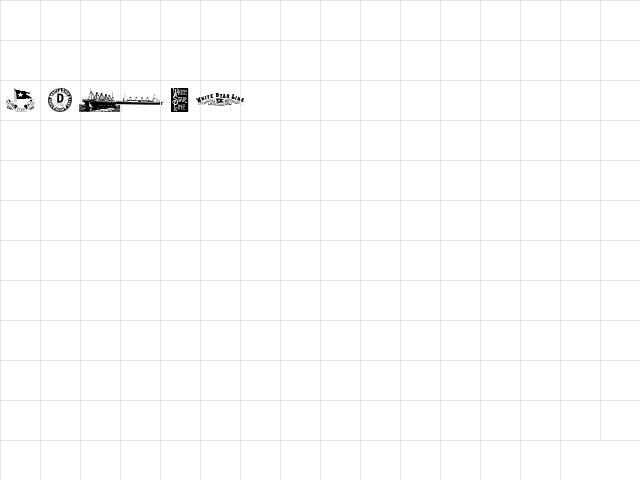
White Star Regular
Design Context for White Star
White Star is a composed and adaptable typeface that performs quietly and consistently across a wide range of design contexts.